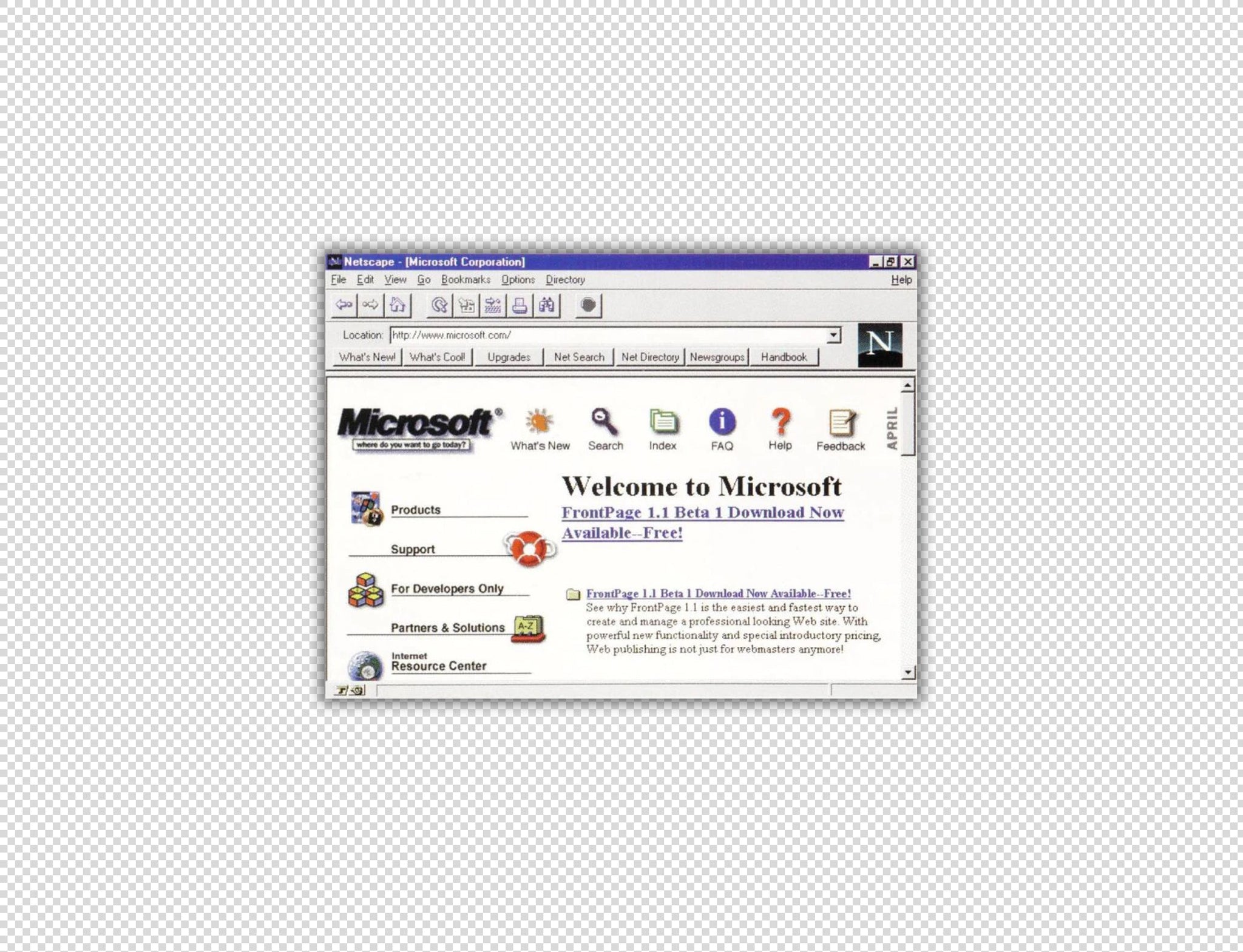
At the time, users and designers alike only had access to a small selection of ‘web-safe’ fonts – typefaces that were pre-installed on computers.
This meant that a webpage could display the fonts without needing to substitute them. The most common fonts used on the early internet were Times New Roman, Arial, Helvetica, Verdana, Georgia, and Courier New. The constraint of only using web-safe fonts shaped the visual language of early websites, where pages were dominated by system fonts – the designs of which were often rendered in low resolution on CRT monitors. Serif fonts like Times New Roman were initially common, reflecting their dominance in print, but they quickly proved difficult to read on pixel-based screens. And let’s not forget, there weren’t many pixels to be playing with back then. As such, sans serifs became more popular, offering cleaner shapes that held up better at small sizes and low resolutions.
To ensure more people had better access to digitally-legible fonts (in a wider range of styles too) in 1996, Microsoft launch their initiative ‘Core fonts for the Web’, releasing a set of fonts that – under EULA – made them freely usable. The set included Arial, Courier New, Times New Roman, Comic Sans, Impact, Georgia, Trebuchet, Webdings and Verdana. All of which, you can agree, are absolute classics, and the remanence of their significance lasted for decades (lest we forget old school meme culture) or still continues to hold cultural relevance. Arial, for example, is everywhere on the internet, and occupies the title of what we consider ‘default’ in contemporary visual language. Just look at Brat!
Anyway, these fonts signalled the improvement of screens, and the start of type design that was digital-first. This meant designers engineered typefaces with larger x-heights, wider spacing, and simplified details. These typefaces marked an early shift toward considering the web as its own typographic space, rather than a direct extension of print. Despite these developments, however, real typographic freedom on the internet was limited for years and years, which led designers to resort to workarounds, such as embedding text in images or using Flash, to achieve a desired look. These solutions were fragile, inaccessible, and difficult to maintain, but they highlighted a growing demand for more expressive web typography.
The turning point came with the introduction of webfont technologies in the late 2000s, particularly with the adoption of CSS @font-face – which allowed users have a custom typeface to display text – and the rise of services like Google Fonts. For the first time, designers could reliably use custom typefaces online without relying on system defaults. The web moved from a handful of safe choices to a near-infinite typographic space but, through these restrictions, it pushed the development of digital type considerably.
So yeah, those are first fonts on the internet. It perhaps didn’t seem like too much of a big deal at the time, but it’s so interesting how these seemingly insignificant decisions have led to the aesthetic of visual culture today (especially with early-internet nostalgia at an all-time high). So often we end up returning to the basics, or what we deem the ‘default’, so it’s a good thing that – in this case – the default is so captivating.
Fun bonus fact, Digi Grotesk by Dr. Rudolf Hell is widely considered the first digital font, and it was designed all the way back in 1968. It’s a bitmap font, and Dr Rudolf Hell (crazy name FYI) designed it for his Digiset CRT phototypesetting machine.